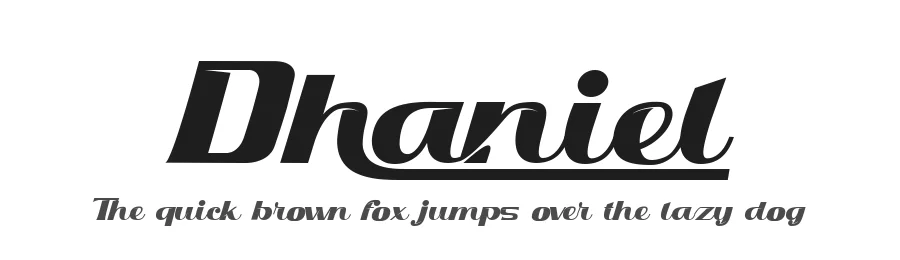
About My Angle Font
My Angle Font is a script font that shines as a display or heading face. Pair it with a clean sans-serif or serif font for body text β the contrast creates a clear hierarchy while the two styles stay balanced and easy to read.